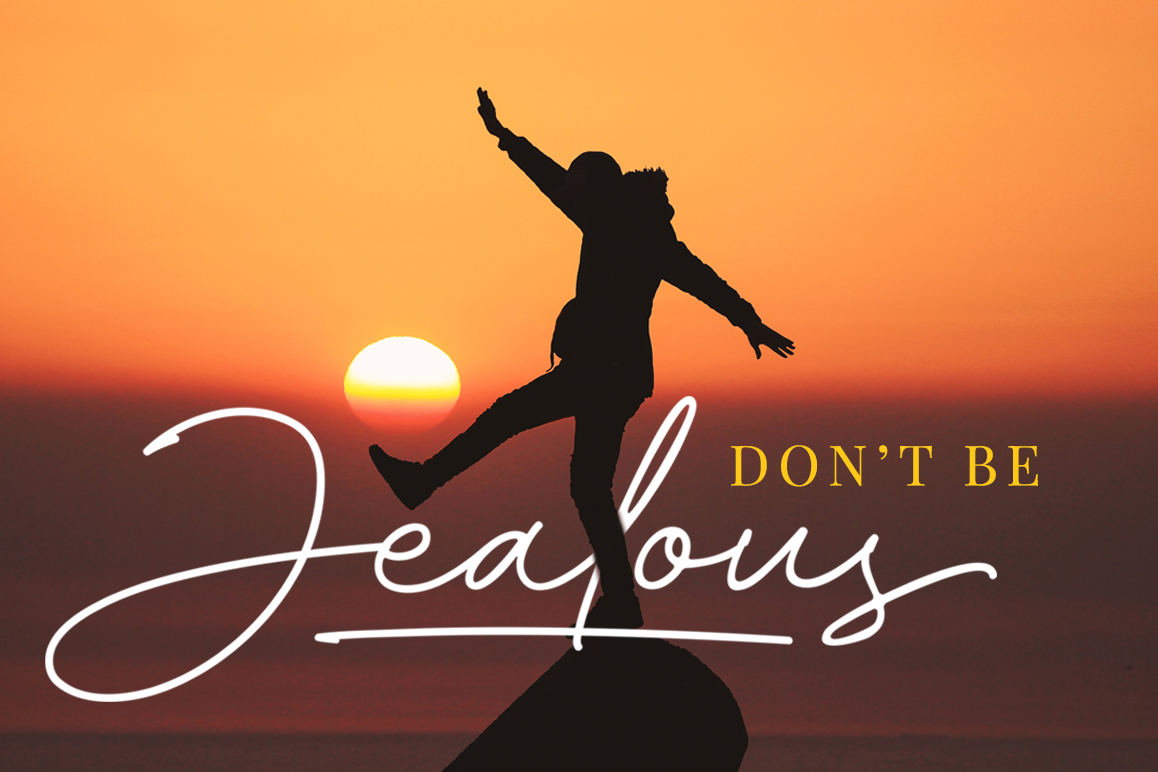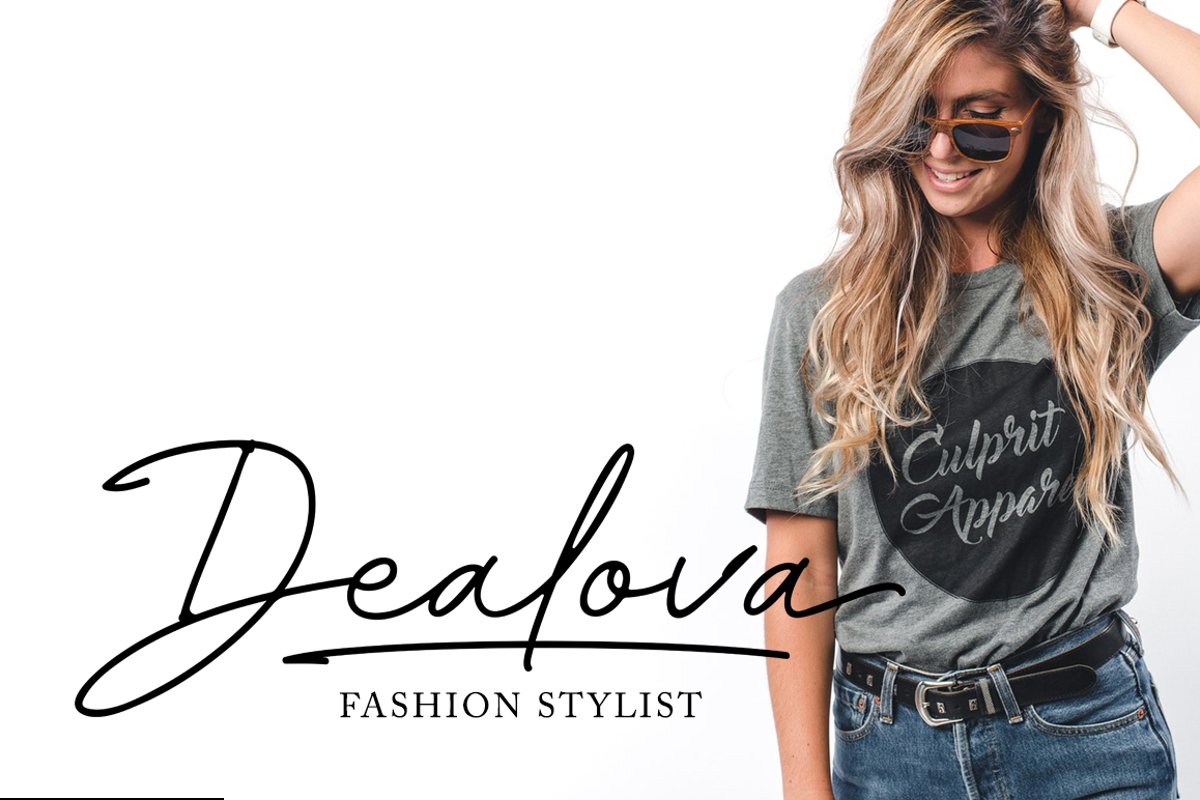
Velocity is a handwritten signature font. It’s perfect for signature logos, quotes, packaging, fashion, wedding invitations or any business that wants to appear modern and elegant.